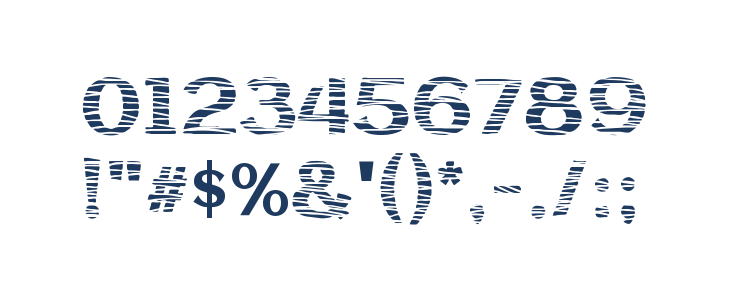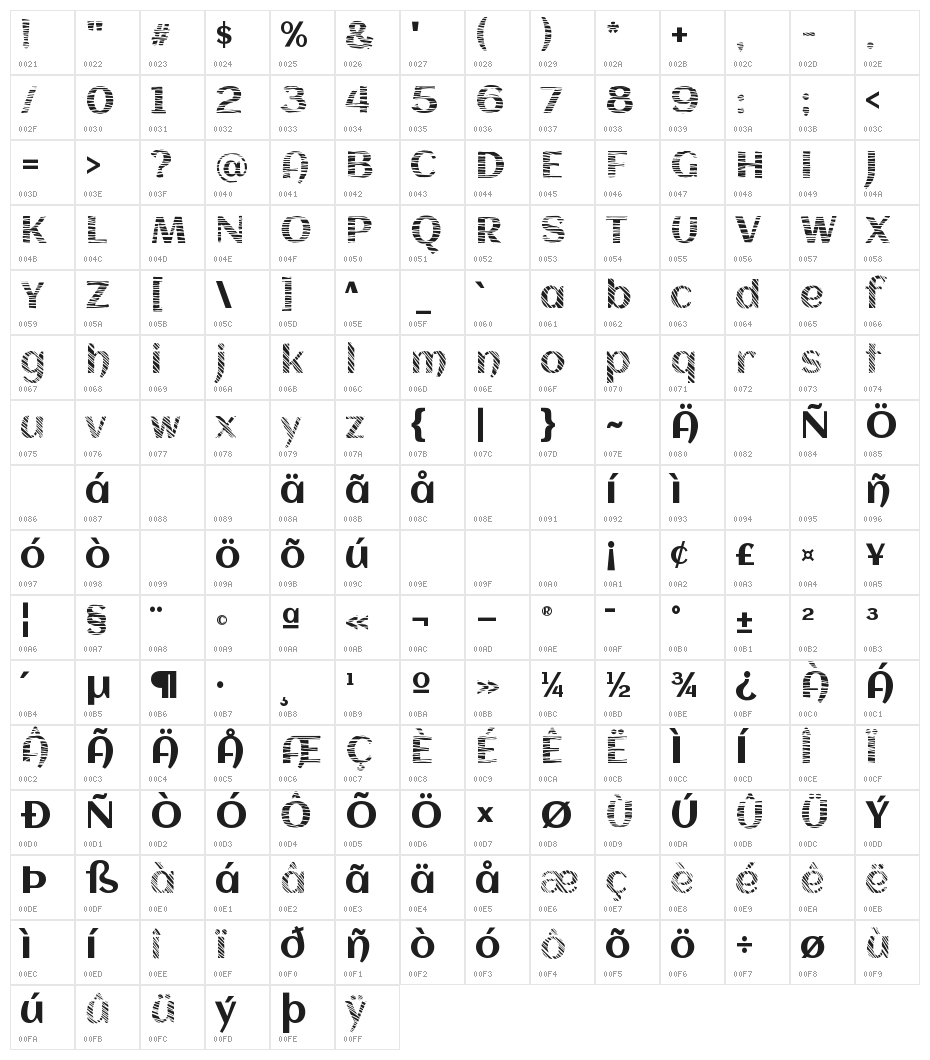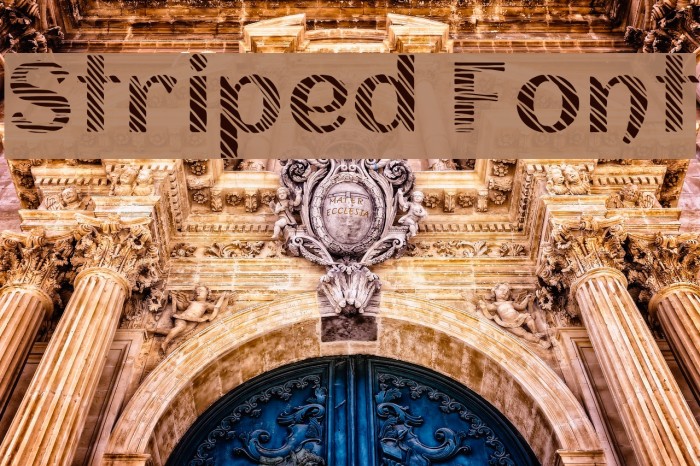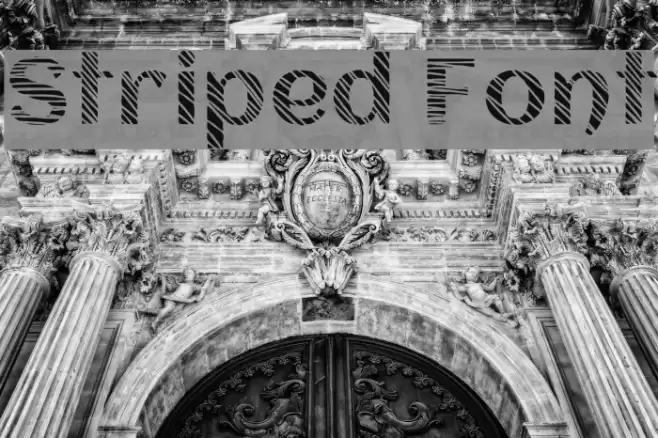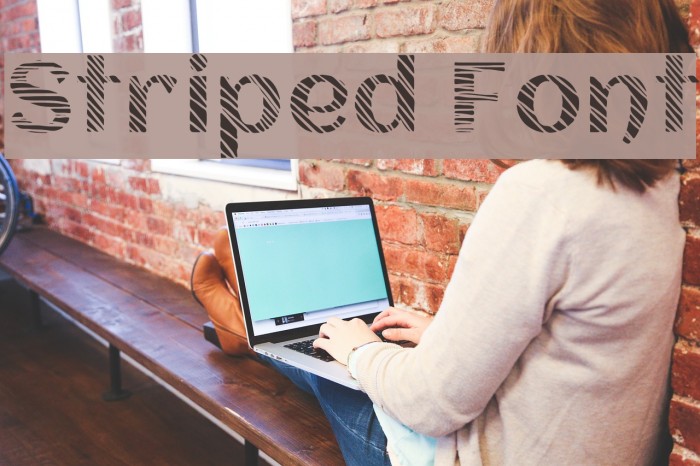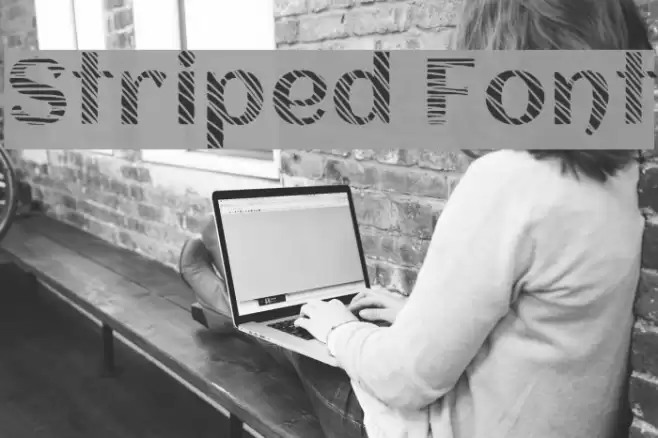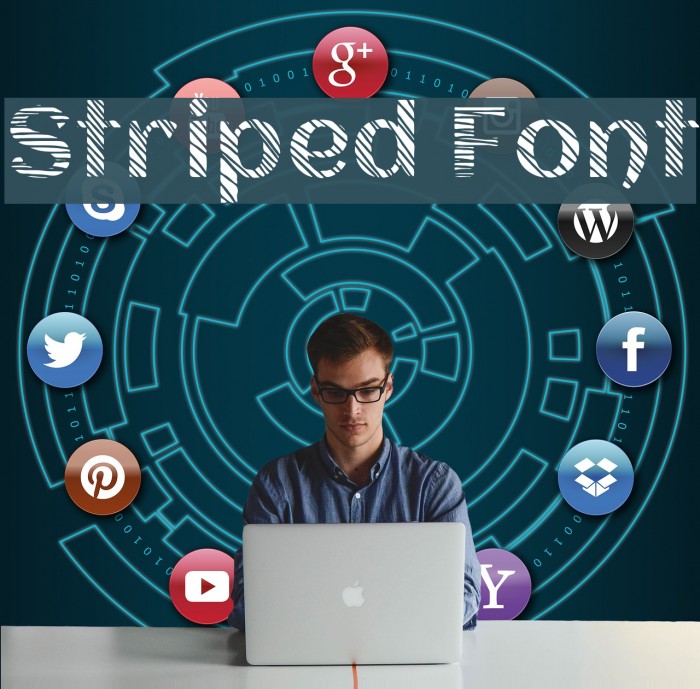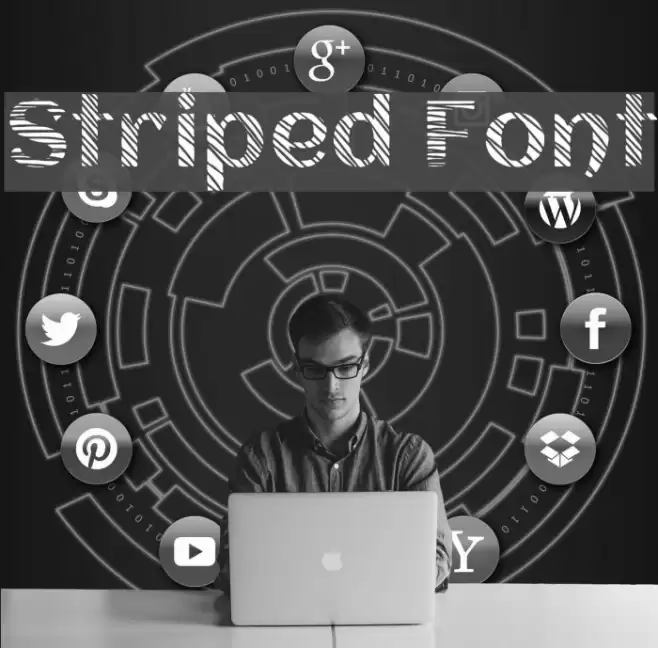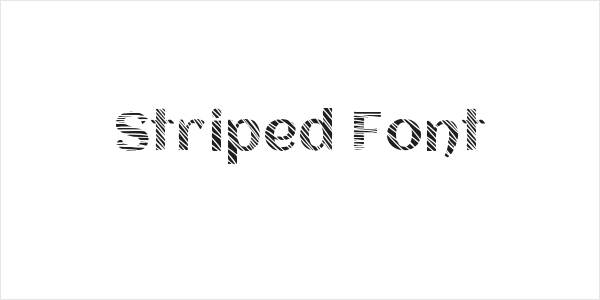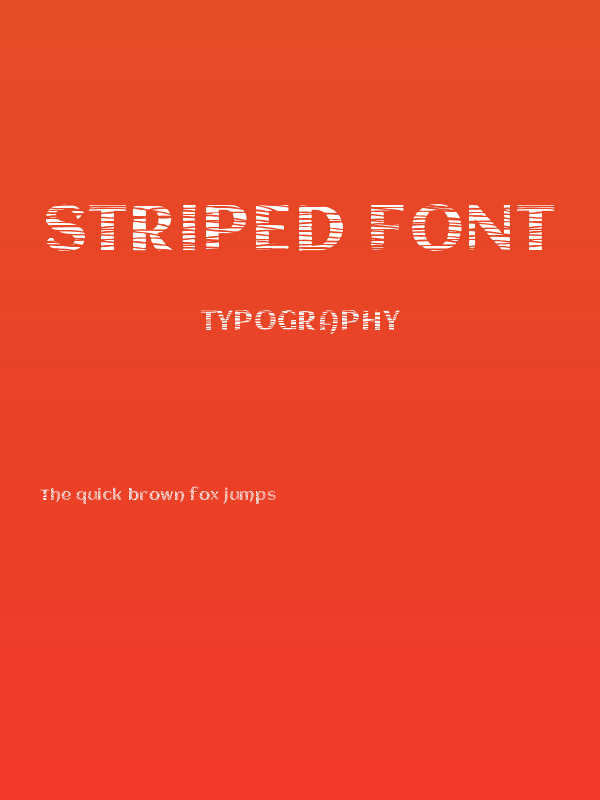
Striped Font Font
Striped Font Description
This font features a unique striped pattern across each character, creating a visually striking effect. The letters are bold and uppercase, with a consistent horizontal stripe running through them, giving a sense of movement and energy. The lowercase letters maintain the same striped design, ensuring uniformity across the typeface. Numbers and special characters are also included, each with the same distinctive striped pattern. This font is ideal for projects that require a bold statement or a modern, edgy look.
Proposed ProjectsIdeal for branding, posters, headlines, and any design needing a bold, modern touch.